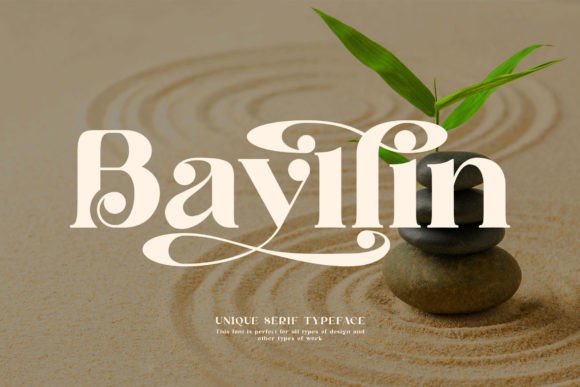
Immerse yourself in the world of typography with Bayllin Unique Serif Typeface Font, a captivating and elegant font family designed to elevate your creative projects to new heights. With its timeless serif design, Bayllin evokes a sense of sophistication and charm, while its modern touches add a contemporary edge, making it the perfect choice for a wide range of applications.
Dive into a world of limitless creativity with Bayllin, a versatile font that effortlessly adapts to your design vision. Whether you're crafting stunning logos, captivating magazine layouts, or captivating social media posts, Bayllin rises to the occasion, leaving an unforgettable impression on your audience. Its PUA encoding ensures effortless access to a treasure trove of glyphs and swashes, empowering you to unleash your creativity without boundaries.
With Bayllin, you'll embark on a typographic journey like no other. Its meticulously crafted curves and refined details exude an air of elegance and class, while its unwavering consistency guarantees a harmonious flow throughout your designs. Experience the joy of seamless typography as Bayllin effortlessly enhances the impact of your words, transforming them into visually stunning masterpieces.
Embrace the allure of Bayllin, a font that transcends time and trends. Its timeless design ensures that your creations will remain relevant and captivating for years to come. Invest in Bayllin today and unlock a world of typographic possibilities, where every project becomes a testament to your impeccable taste and unwavering commitment to design excellence.